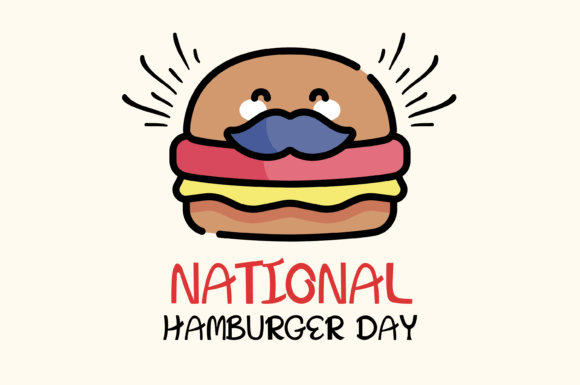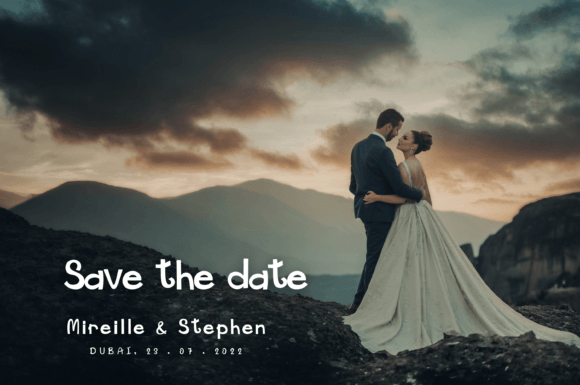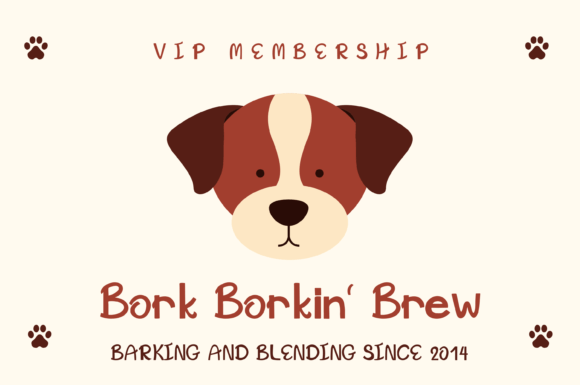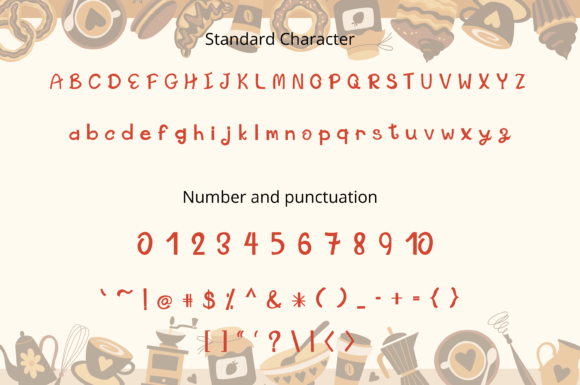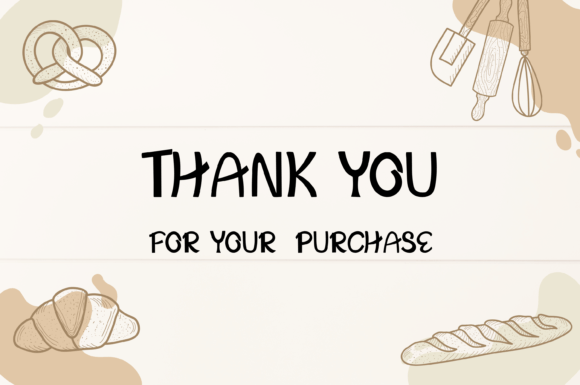
Coffee Vanilla Font: The Perfect Addition to Your Creative Projects
Are you a designer, crafter, or DIY enthusiast looking for a unique and versatile font to elevate your creative projects? Look no further than the Coffee Vanilla Font! This whimsical and clean handwritten font is perfect for adding a personal touch to your designs, and its adaptability makes it suitable for a wide range of projects.
What is Coffee Vanilla Font?
Coffee Vanilla Font is a beautifully crafted handwritten font that exudes a sense of playfulness and elegance. Its clean lines and whimsical flair make it perfect for use in a variety of creative projects, from digital designs to handmade crafts. The font’s versatility is one of its standout features, allowing it to be paired with a wide range of styles and themes.
Key Features of Coffee Vanilla Font
- Whimsical and clean design: The Coffee Vanilla Font features a unique blend of whimsy and cleanliness, making it perfect for designs that require a touch of personality.
- Handwritten style: The font’s handwritten style gives it a personal and organic feel, making it perfect for use in crafty and DIY projects.
- Highly versatile: The Coffee Vanilla Font can be used in a wide range of projects, from digital designs to handmade crafts, and can be paired with a variety of styles and themes.
- Easily readable: The font’s clean lines and clear design make it easily readable, even at small sizes.
Uses for Coffee Vanilla Font
The Coffee Vanilla Font is perfect for use in a wide range of creative projects, including:
- Digital designs: Use the Coffee Vanilla Font in digital designs, such as social media graphics, blog posts, and website headers.
- Handmade crafts: Add a personal touch to your handmade crafts, such as cards, gift tags, and scrapbooking projects.
- Stationery and invitations: Use the Coffee Vanilla Font to create beautiful and unique stationery and invitations.
- Branding and packaging: The font’s unique style makes it perfect for use in branding and packaging design.
Tips for Using Coffee Vanilla Font
Here are a few tips for getting the most out of the Coffee Vanilla Font:
- Experiment with different sizes and colors: The Coffee Vanilla Font looks great in a variety of sizes and colors, so don’t be afraid to experiment and find the perfect combination for your project.
- Pair with other fonts: The Coffee Vanilla Font pairs well with a variety of other fonts, so try combining it with other fonts to create a unique and interesting look.
- Use in combination with images: The font’s whimsical style makes it perfect for use in combination with images, such as illustrations and photographs.
In conclusion, the Coffee Vanilla Font is a versatile and beautiful handwritten font that is perfect for adding a personal touch to your creative projects. Its whimsical and clean design makes it suitable for use in a wide range of projects, from digital designs to handmade crafts. With its highly readable design and adaptability, the Coffee Vanilla Font is sure to become a favorite among designers, crafters, and DIY enthusiasts.